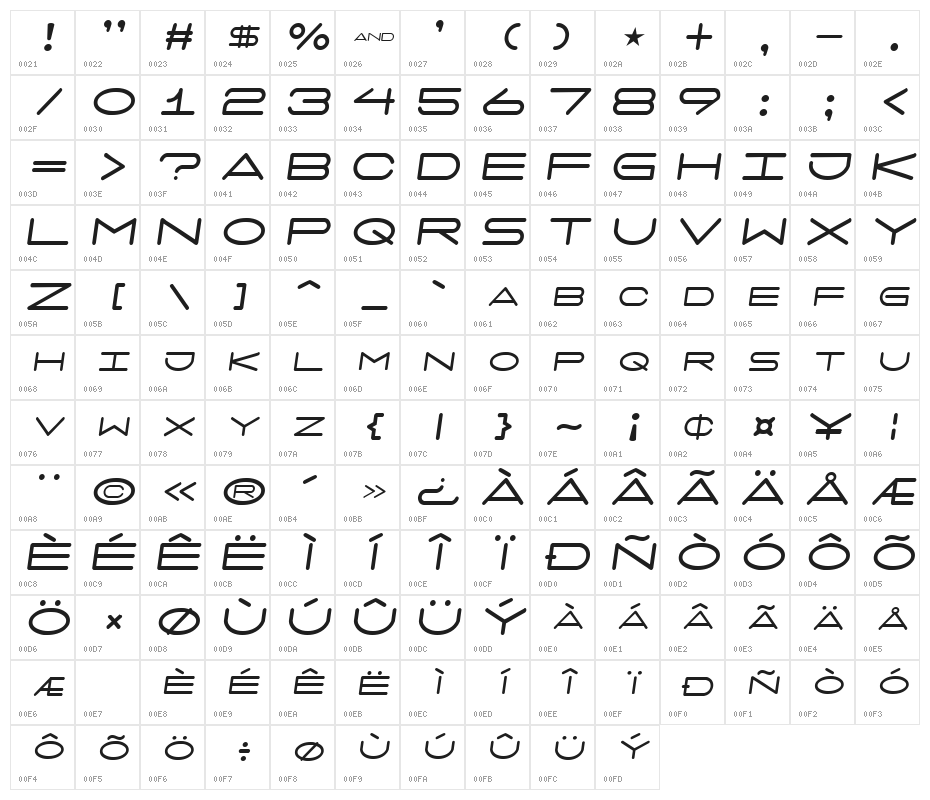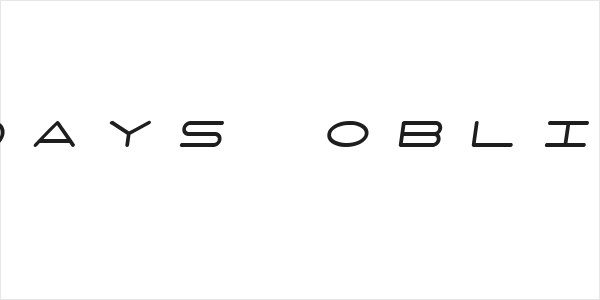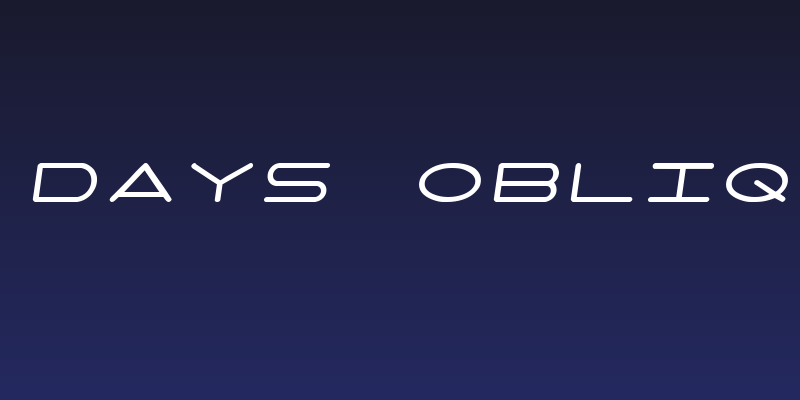
7 days oblique Font
7 days oblique Description
This font features a sleek, futuristic design with an oblique orientation, giving it a dynamic and forward-moving appearance. The characters are crafted with a geometric precision, showcasing clean lines and sharp angles. The uppercase and lowercase letters maintain a consistent style, with a slight slant that adds to the overall modern aesthetic. The numerals are equally streamlined, fitting seamlessly with the letterforms. Special characters are included, maintaining the same stylistic approach, making this font versatile for various applications. Its unique style is ideal for projects that require a contemporary and innovative look.
| Proposed Projects | Ideal for technology branding, sci-fi posters, modern web design, and innovative product packaging. |